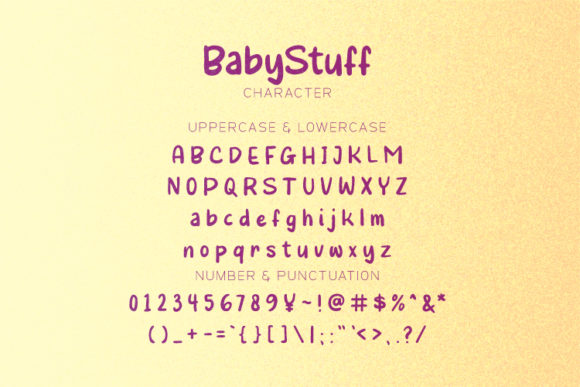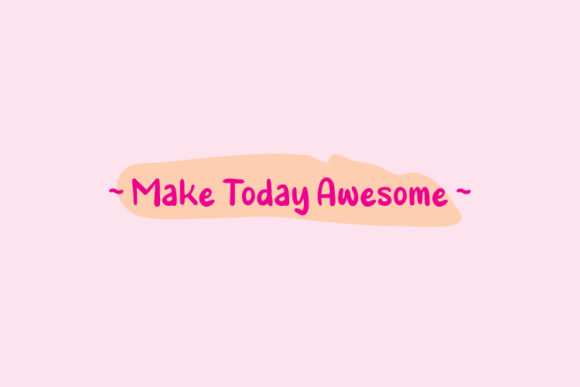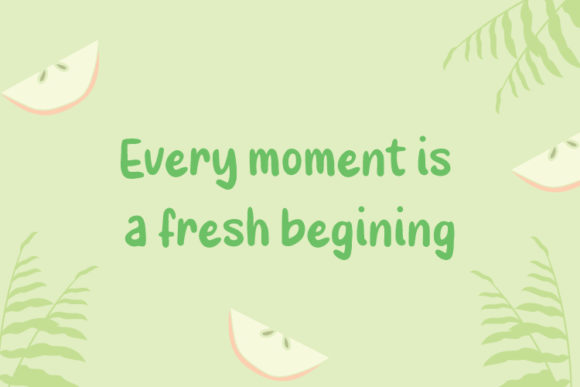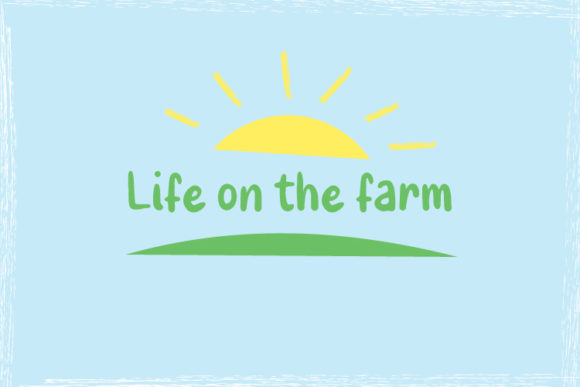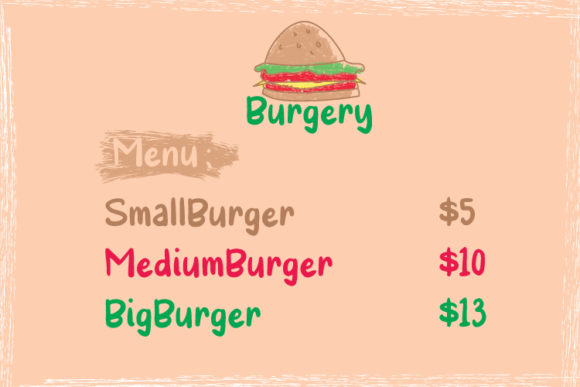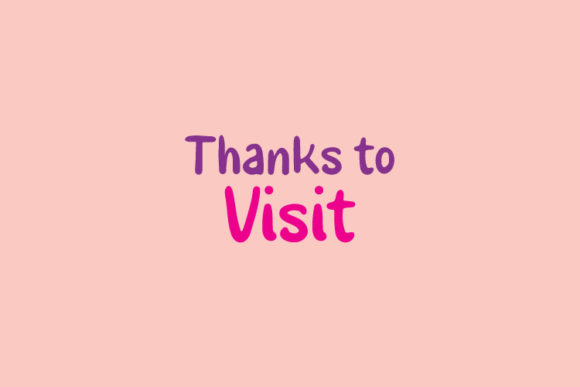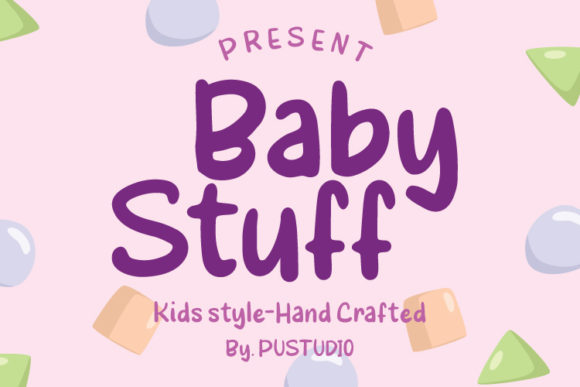
BabyStuff Font: The Perfect Choice for Your Creative Projects
Are you a designer, crafty person, or simply someone who loves to create visually appealing content? Look no further than the BabyStuff font, a fresh and relaxed display font that’s perfect for a wide range of projects. In this article, we’ll dive into the world of BabyStuff and explore its features, uses, and benefits.
What is BabyStuff Font?
BabyStuff is a display font designed to add a touch of playfulness and relaxation to your designs. Its fresh and modern look makes it an excellent choice for various creative projects, from poster designs and book covers to merchandise, fashion campaigns, and more.
Key Features of BabyStuff Font
- Fresh and Relaxed Design: BabyStuff boasts a unique and calming design that’s perfect for creating a laid-back vibe in your projects.
- Versatile: This font is suitable for a wide range of applications, including posters, book covers, merchandise, fashion campaigns, newsletters, advertising, magazines, greeting cards, album covers, and more.
- Easy to Read: Despite its playful design, BabyStuff is easy to read, making it perfect for both headlines and body text.
- Customizable: You can adjust the font size, style, and color to fit your project’s specific needs.
Uses of BabyStuff Font
The versatility of BabyStuff font makes it an excellent choice for various projects. Here are some ideas to get you started:
- Poster Designs: Create eye-catching posters for events, promotions, or announcements with BabyStuff font.
- Book Covers: Add a touch of playfulness to your book covers and make them stand out on bookstore shelves.
- Merchandise: Use BabyStuff font on t-shirts, mugs, phone cases, and other merchandise to give them a unique and personalized look.
- Fashion Campaigns: Create stylish and modern fashion campaigns with BabyStuff font.
- Newsletters and Magazines: Use BabyStuff font to add a fresh and relaxed touch to your newsletters and magazines.
- Greeting Cards: Create beautiful and heartfelt greeting cards for special occasions with BabyStuff font.
Benefits of Using BabyStuff Font
So, why choose BabyStuff font for your projects? Here are some benefits:
- Unique and Eye-Catching: BabyStuff font adds a touch of uniqueness and playfulness to your designs, making them stand out from the crowd.
- Easy to Use: This font is easy to read and works well in various contexts, making it a versatile choice for designers.
- Customizable: You can adjust the font to fit your project’s specific needs, ensuring a perfect fit.
- Time-Saving: With BabyStuff font, you can create stunning designs quickly and efficiently, saving you time and effort.
Tips for Using BabyStuff Font
To get the most out of BabyStuff font, here are some tips:
- Experiment with Font Sizes: Play around with different font sizes to create visual hierarchy and emphasis in your designs.
- Pair with Other Fonts: Combine BabyStuff font with other fonts to create a unique and visually appealing typography.
- Adjust Font Color: Experiment with different font colors to match your brand’s tone and style.
- Use in Combination with Images: Pair BabyStuff font with high-quality images to create stunning and effective designs.
In conclusion, BabyStuff font is a fresh and relaxed display font that’s perfect for a wide range of creative projects. Its unique design, versatility, and ease of use make it an excellent choice for designers, crafters, and anyone looking to add a touch of playfulness to their designs. With its numerous benefits and uses, BabyStuff font is sure to become a staple in your design toolkit.